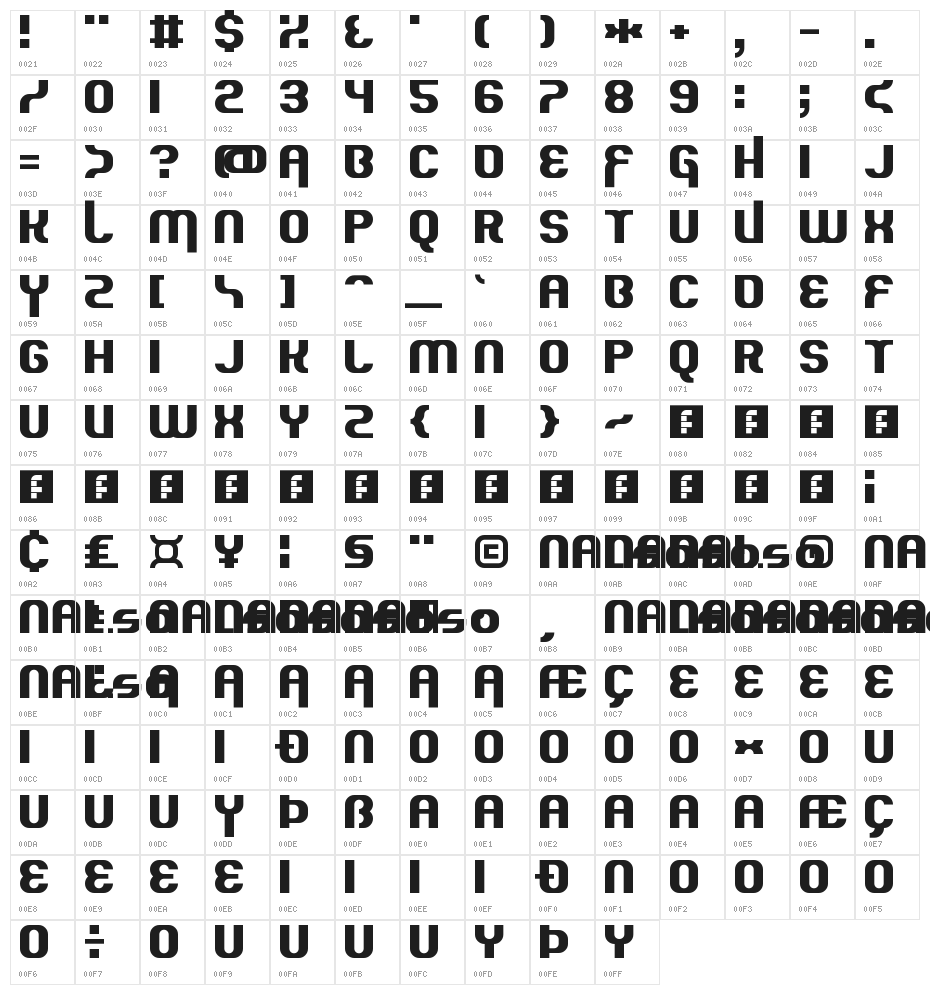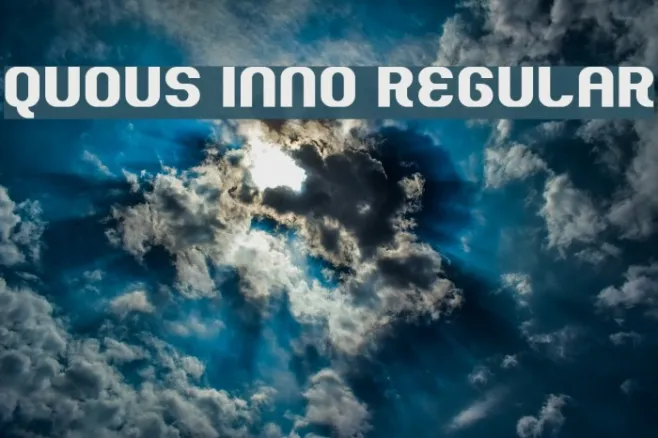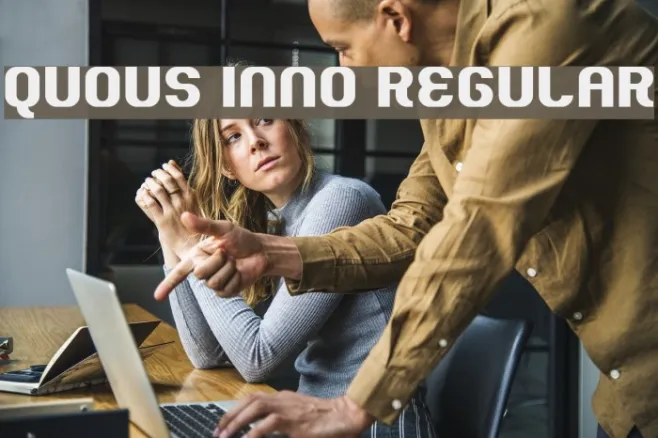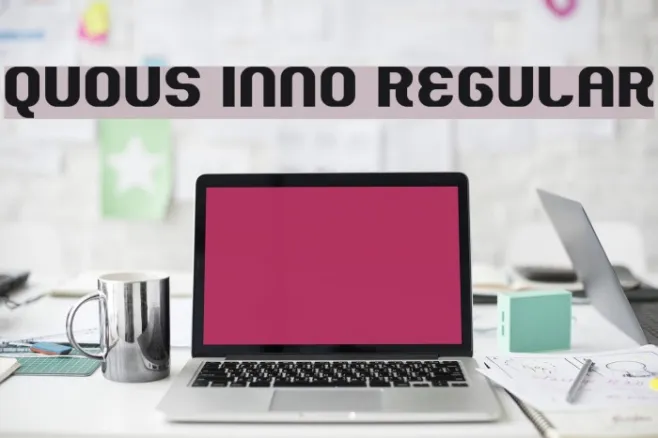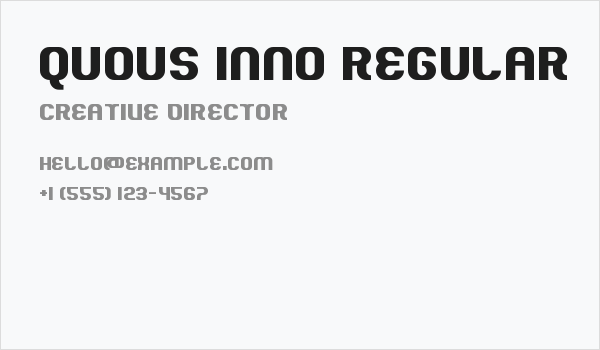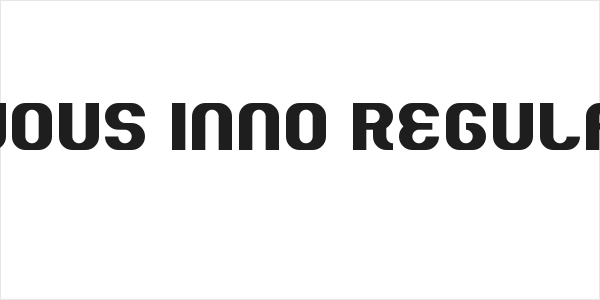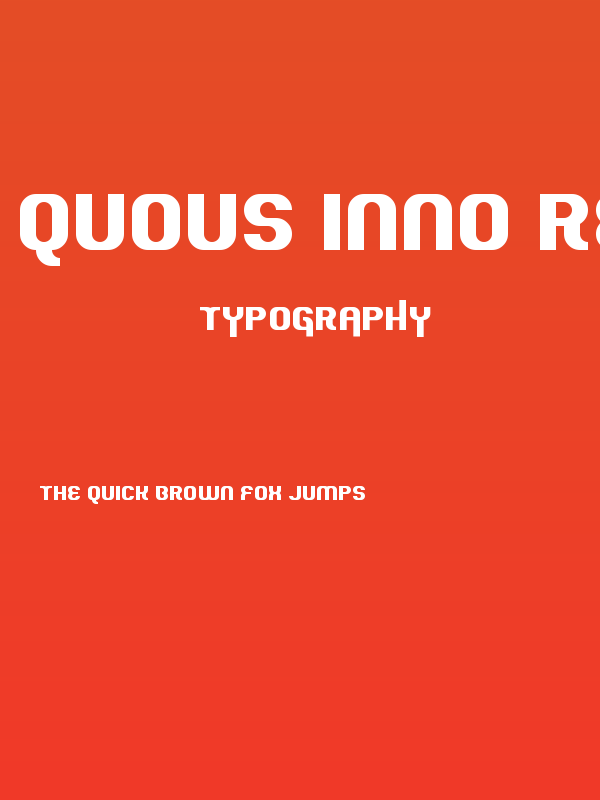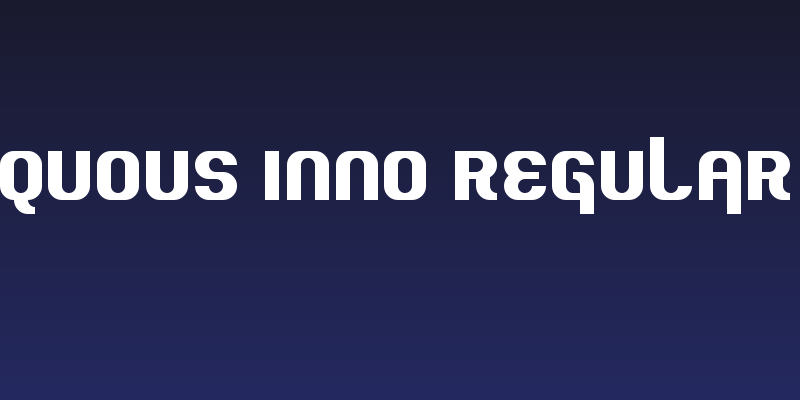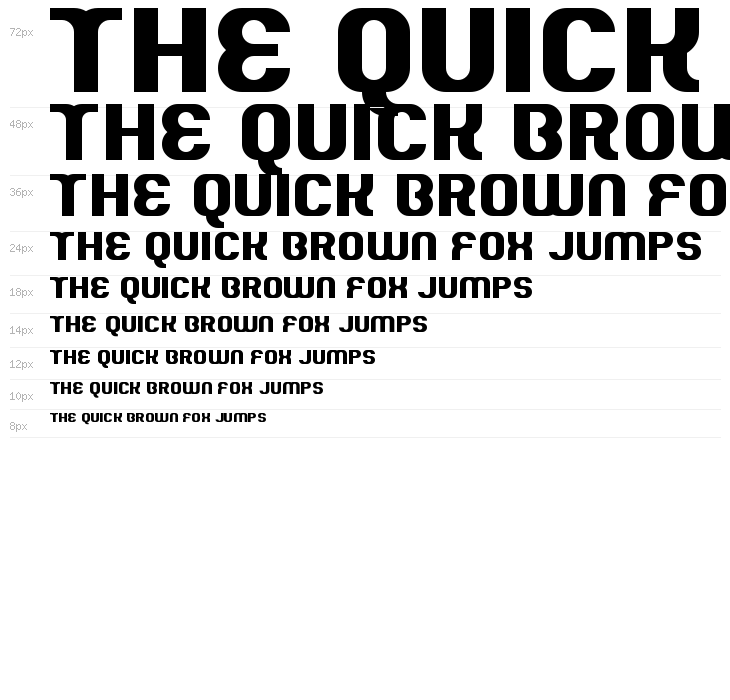
Quous Inno Regular Font
Quous Inno Regular Description
This font features a bold and modern design with a unique geometric style. The characters are crafted with a distinct block-like appearance, giving them a strong and impactful presence. The uppercase and lowercase letters maintain a consistent height, creating a uniform look across the text. The numerals and special characters follow the same design principles, ensuring a cohesive visual experience. The font's boldness and geometric shapes make it suitable for attention-grabbing headlines and logos. Its modern aesthetic is perfect for contemporary design projects that require a strong visual statement.
| Proposed Projects | Ideal for branding, posters, headlines, and modern digital designs. |